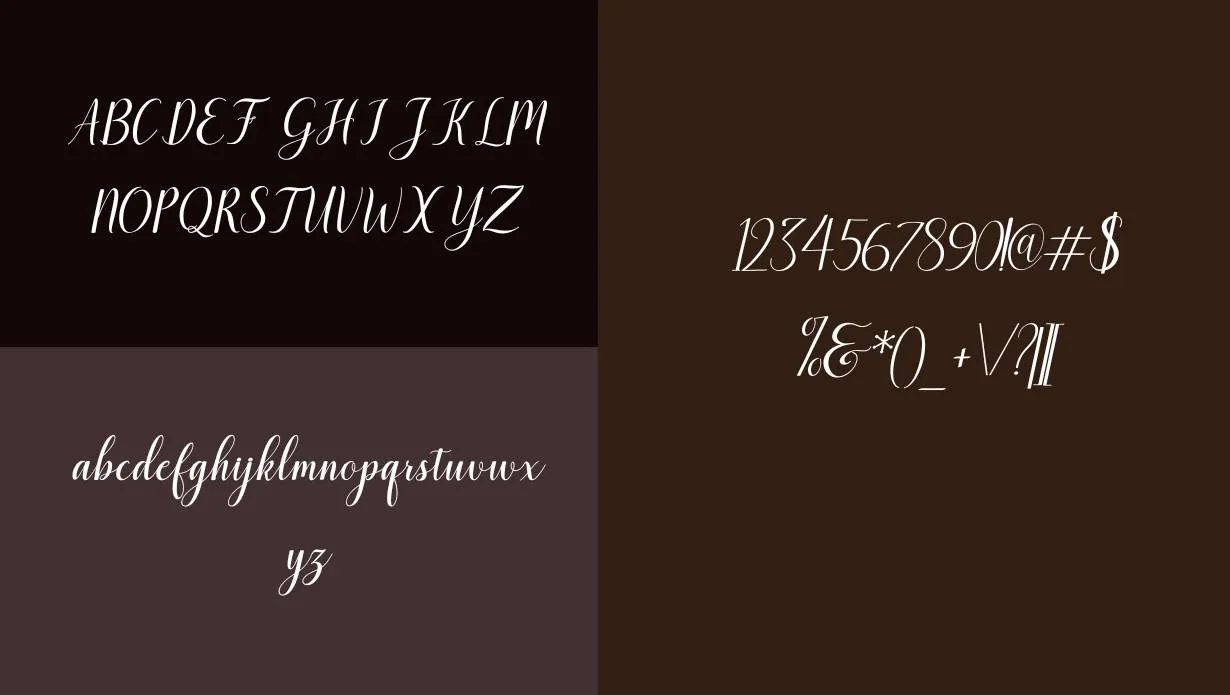
Santosa font emanates a friendly and modern vibe, frequently found in websites, branding, or casual designs. Its simple and approachable design offers a versatile and easy-to-read option for various digital and print projects.
| Name | Santosa font |
| Designer | zulkhairilettering |
Whether it’s a website, a casual poster, or a branding campaign, the Santosa font brings a friendly and contemporary look to the text.